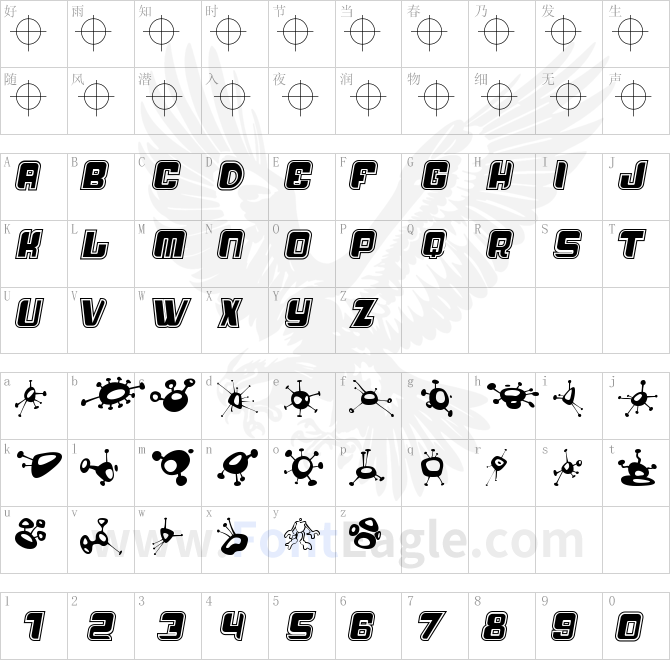
- Font name:AlienMushrooms
- Font Subfamily ID:Altsys Fontographer 4.0.2 AlienMushrooms
- Font Full Name:AlienMushrooms
- Font Version:Altsys Fontographer 4.0.2 6/2/99
- Postscript:AlienMushrooms